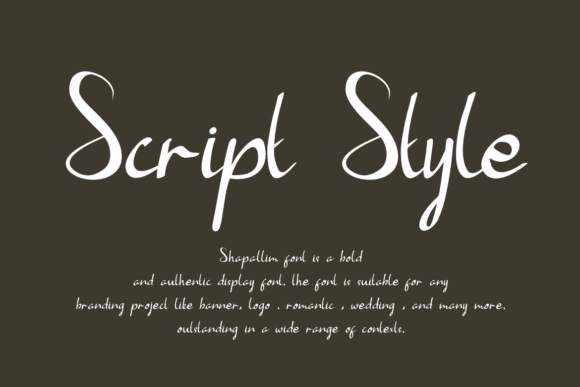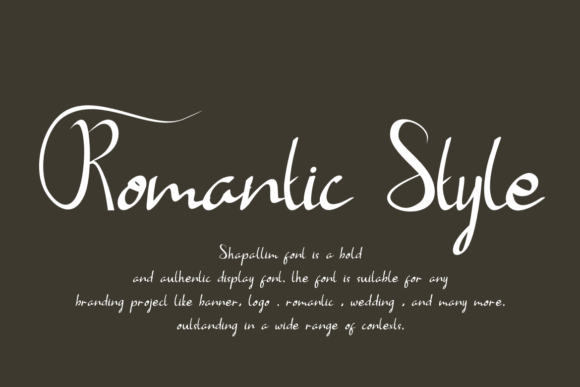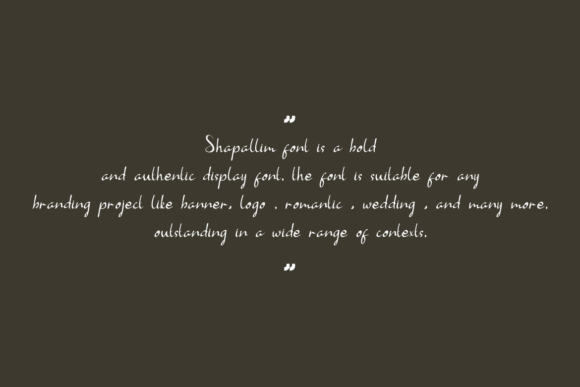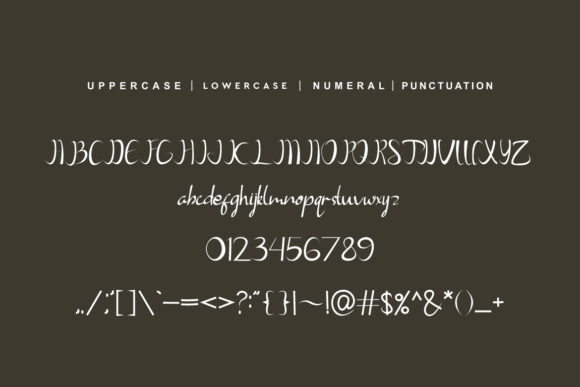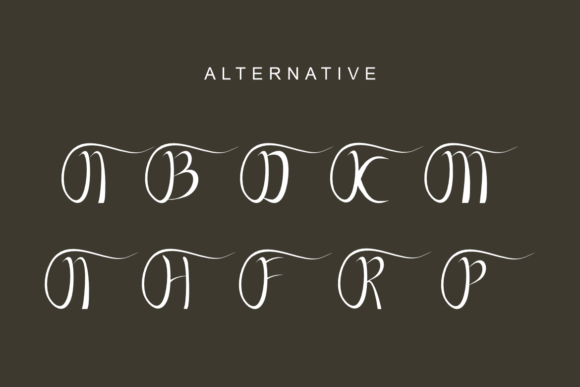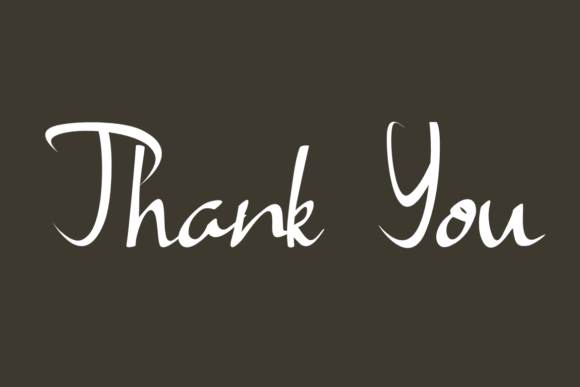
Introduction to Shapallim Font
As a designer, have you ever been in the midst of a creative project, searching for that perfect font to elevate your design and capture the essence of your vision? You’re not alone. We’ve all been there, scrolling through endless options, trying to find that one special font that will make our designs stand out. That’s where the Shapallim Font comes in – a sweet and cursive handwritten font that will add a touch of joy and romance to any project.
Whether you’re working on a branding project, creating a wedding invitation, or designing a marketing campaign, the Shapallim Font is the perfect addition to your design resource library. With its high-quality design and transparent background, this font is perfect for free download and use in any creative project.
Key Features of Shapallim Font
- Transparent background for seamless integration into various designs
- Unique, modern design aesthetic making it a great addition to any design project
Honest Review: Shapallim Font
I recently came across the Shapallim Font, and I must say it’s a great addition to any design resource. The font is free to download, which is always a plus, and its transparent background makes it super versatile for any creative project.
- High-quality design that’s perfect for modern designs
- ⚠️ Limited character set, which might be a concern for designers who need a wide range of characters
- ⚠️ Not as versatile as some other fonts, which might limit its use in certain design contexts
Overall, I’m impressed with the Shapallim Font. Its modern design and transparent background make it a great choice for designers who want a high-quality font without breaking the bank. While it may have some limitations, it’s definitely worth considering for any creative project.
The Shapallim Font is a high-quality design resource that offers a unique and creative touch to any project. Its transparent background makes it versatile for use in various design applications.
Tips for Getting the Most Out of Shapallim Font
Experiment with different font sizes and styles to achieve a unique look. Use the font in combination with other design elements to create a visually appealing design.
The Shapallim Font is ideal for use in creative projects such as logos, branding materials, and social media graphics. Its unique design makes it perfect for adding a personal touch to your designs.
Comparison to Shapallim Font: Noto Sans has a more modern and sleek design, while Shapallim Font has a more vintage and elegant feel. Noto Sans is also more versatile and can be used in a variety of creative projects, from logos to body text.
Comparison to Shapallim Font: Lato has a more modern and sleek design, while Shapallim Font has a more vintage and elegant feel. Lato is also more versatile and can be used in a variety of creative projects, from logos to body text.